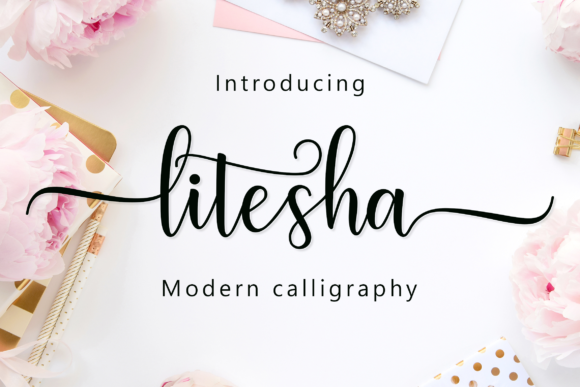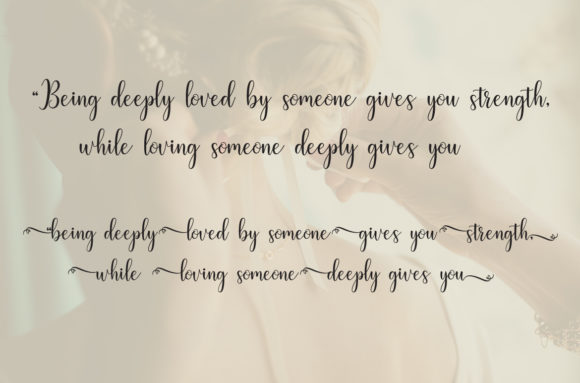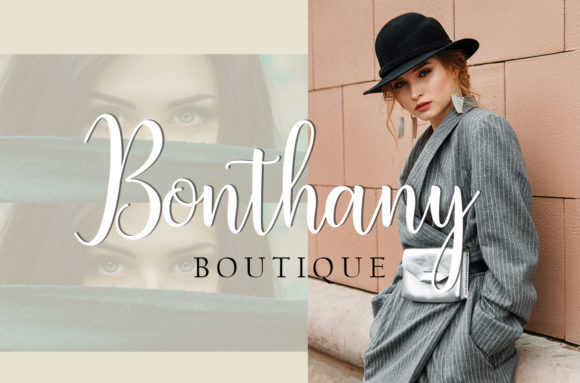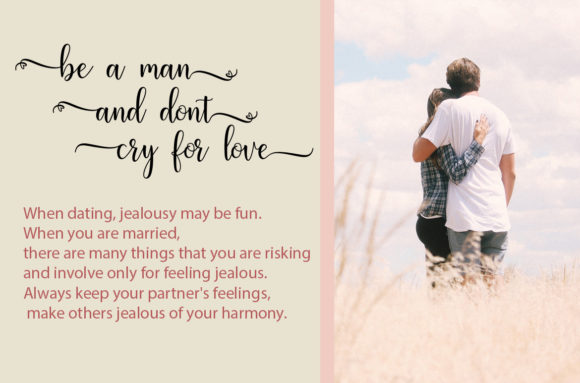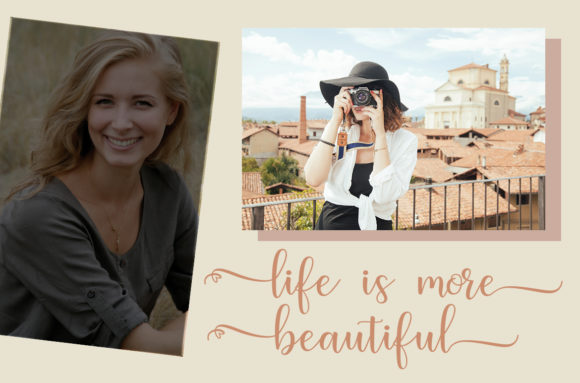
Litesha Script Font
About Litesha Script Font
Litesha Script is a stunning hand-made script font that comes packed with a large range of stunning alternates.
It’s a perfect font that allows you to turn any project into something special within seconds.